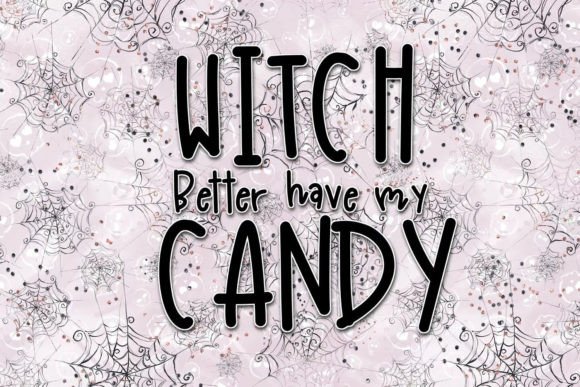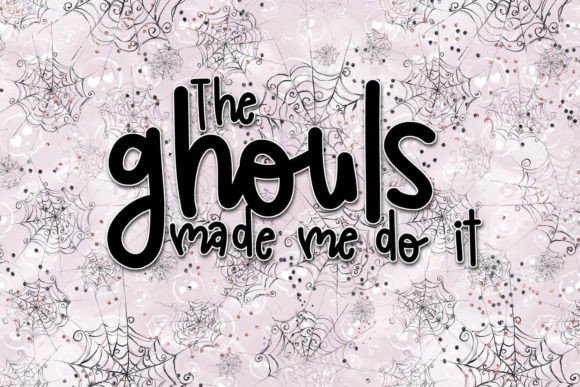
Introduction to Glorious Morning Font
Glorious Morning is a quirky and spooky font, with adorable run-together letters giving it a handwritten feel.
Use Glorious Morning on a variety of projects or with your cutting machine .
Key Features of Glorious Morning Font